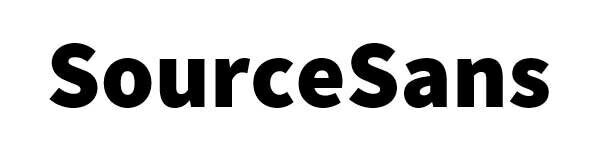
Roblox Fonts : 21 Most Used Roblox Font Styles by Users to Code in Roblox
As we all know that the Roblox is an imaginary platform for developing the games, and it allows their users to create their own games. You can even play games developed by other users as well.
The developer members make use of several popular Roblox Fonts in their games for giving the style to their games.
All such Roblox fonts play a vital role in highlighting something in the games, or it may also be used to follow the game theme.
If you want to show how graphical user interface will display its texts, then you need to use these Roblox fonts in a text table, text box, and text button. These fonts may be in regular, bold, light variant, or italic.
Here in this article, we are providing you all the most used Roblox Fonts Styles by users for coding in the game in Roblox.
List of 21 Best Roblox Fonts Used by Roblox Users
1. Arial
Arial is a font set that comes under the sans-serif category, and this font is designed by Robin Nicholas and Patricia Saunders in 1982. This font can be used for Monotype Typography.
2. Arial Bold
If you want to use Arial bold font to render something in your game, then Roblox has assigned the Roblox font codes, and for this font type, you have to use ‘2’ key as its code. This font is similar to Arial but in boldface.
3. Bodoni
Bodoni is a font designed by Giambattista Bodoni in the late eighteenth century under the serif category. This font is known for its classic designs because of its rational structure. This font is free for personal use.
4. Antique
5. Highway
The highway has six different font style, and all are neat and stylish. The highway has supports more than one language. This font is variable and can be used in upper and lower case letters. Highway also has commercial licensing.
6. SourceSans
Paul D. Hunt designs SourceSans font under the Sans-serif category of fonts. This font is known as the first open source font from the family of Adobe. This font is free to use for personal and commercial use. The Roblox font code (enum) for this font is ‘3’.
7. SourceSans Bold
The SourceSans Bold has the Roblox font code (enum) ‘4’. It is similar to SourceSans font but only in a bold style that contains letters which look more thick and black than SourceSans. This font can be used for free for personal and commercial purpose.
8. SourceSans Semibold
If you want to use this font in Roblox, then you have to use the ‘16’ as its (enum) font code. This font is another style in SourceSans family, which contains letters that are bolder than SourceSans but less bold than SourceSans Bold. This font is available for personal and commercial use.
9. SourceSans Light
The SourceSans Light font belongs to the same SourceSans family, and you have to use ‘5’ as its (enum) font code in Roblox. It is free for personal and commercial use. This font has lighter boldface than regular fonts in this family.
10. SourceSans Italic
As we know that fonts for Roblox need a code for using it in the game and if you want to use SourceSans font in italic style then you have to use ‘6’ as its enum. The font is free for personal and commercial use.
11. Cartoon (Comic Neue Angular)
The Roblox font code (enum) for the cartoon is ‘9’. Cartoon or Comic New Angular font was designed by Craig Rozynski and Hrant Papazian. Cartoon font is based on Comic Sans and was launched in 2014. This font is free for personal and commercial use.